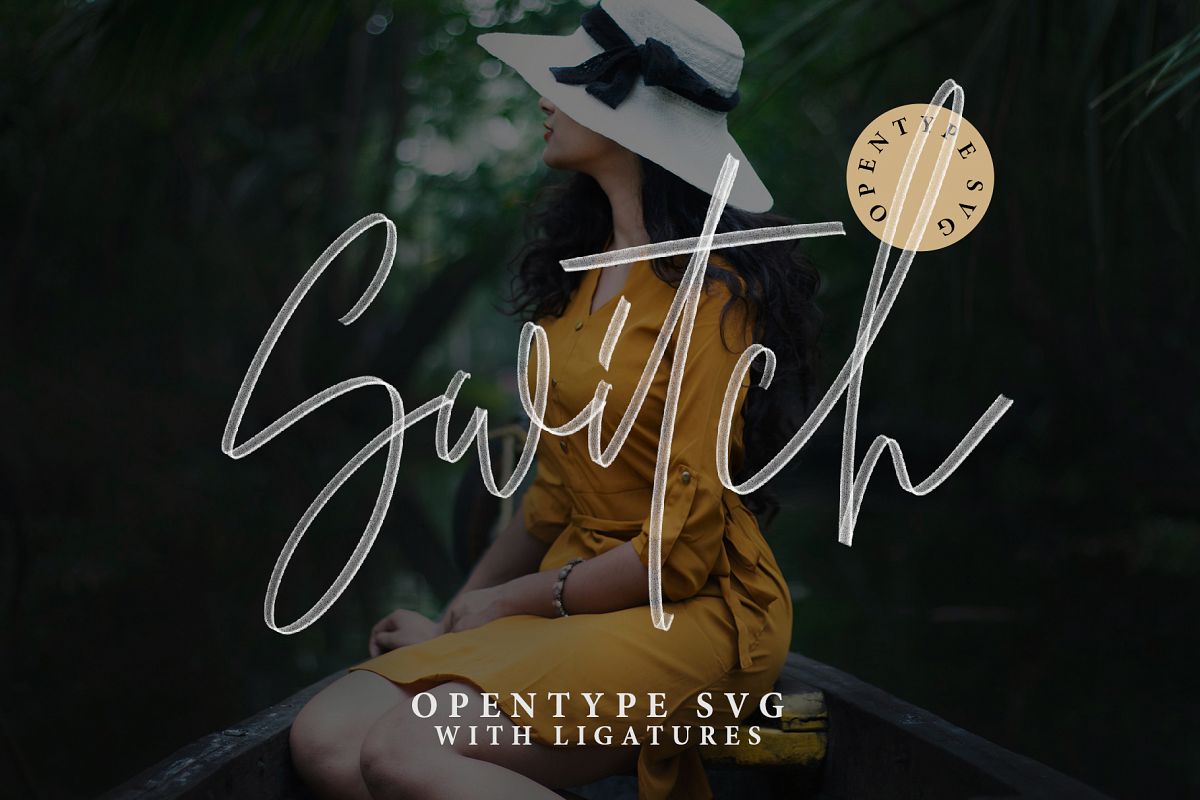
SWITCH handwritten font svg
Switch-SVG
Switch
Switch SVG includes full set of lovely uppercase and lowercase letters, multilingual symbols, numerals and punctuation. This is so perfect for invitations, monograms etc